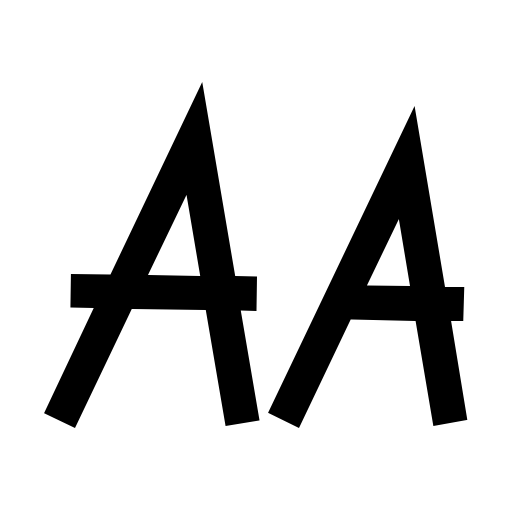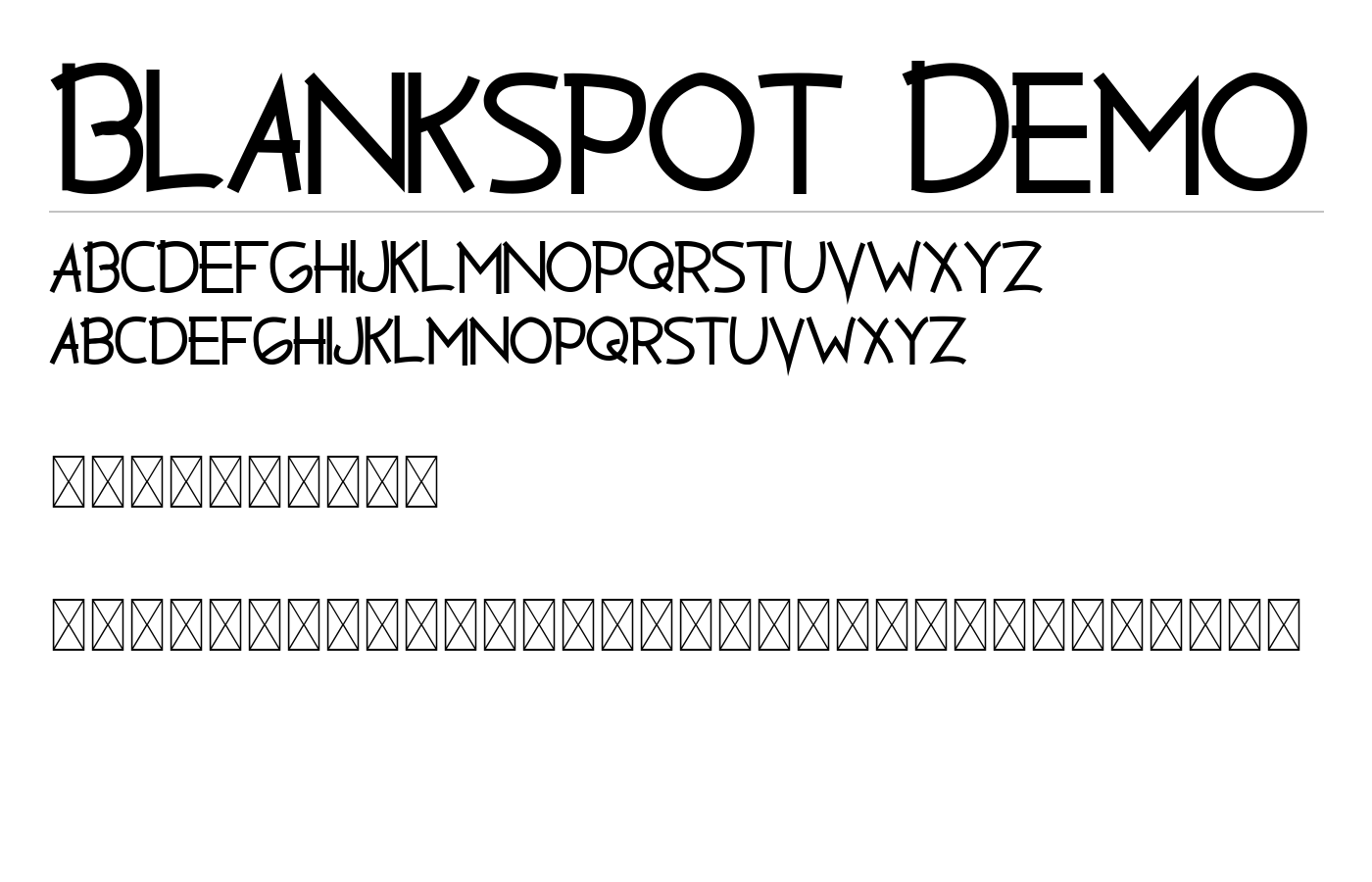
Blankspot Demo is a whimsical sans serif font with a playful and slightly quirky character. Its tall, narrow letterforms feature uneven strokes and subtle irregularities that give it a hand-crafted, informal feel, making it perfect for creative projects, casual branding, and eye-catching headlines. This font suits designs that want to convey a fun, unique, and approachable personality.
Blankspot Demo Font
About Blankspot Demo Font